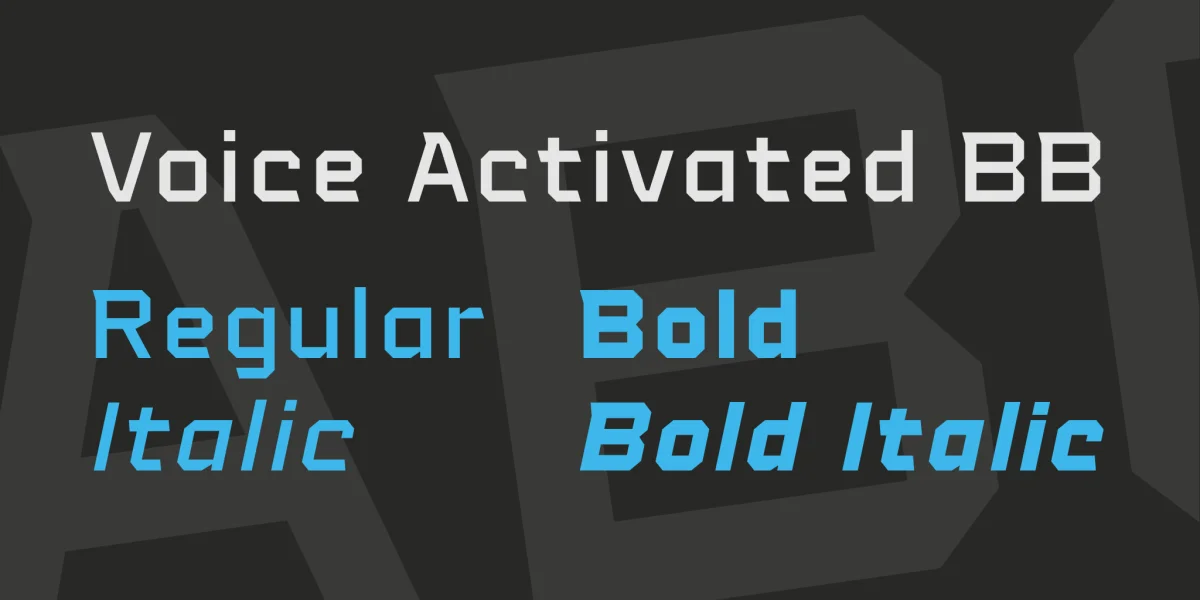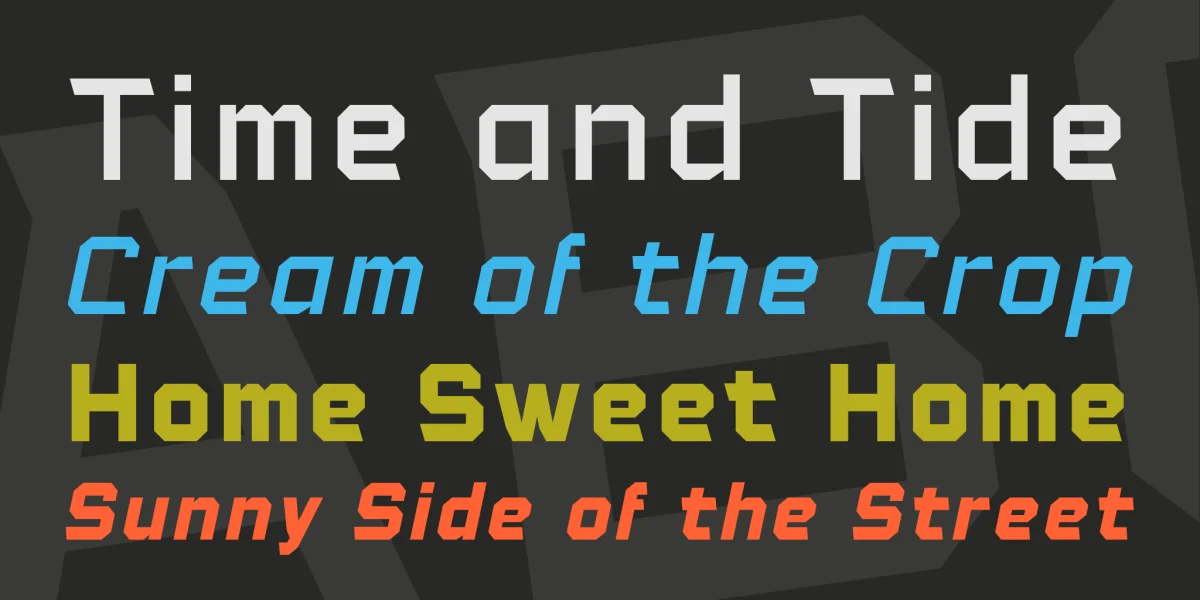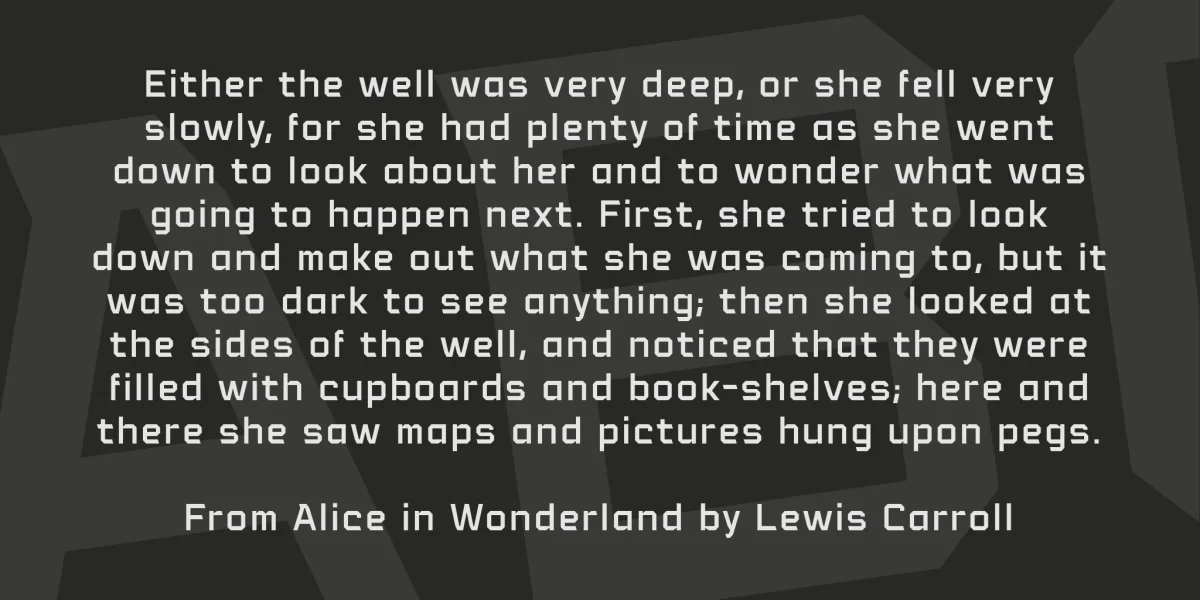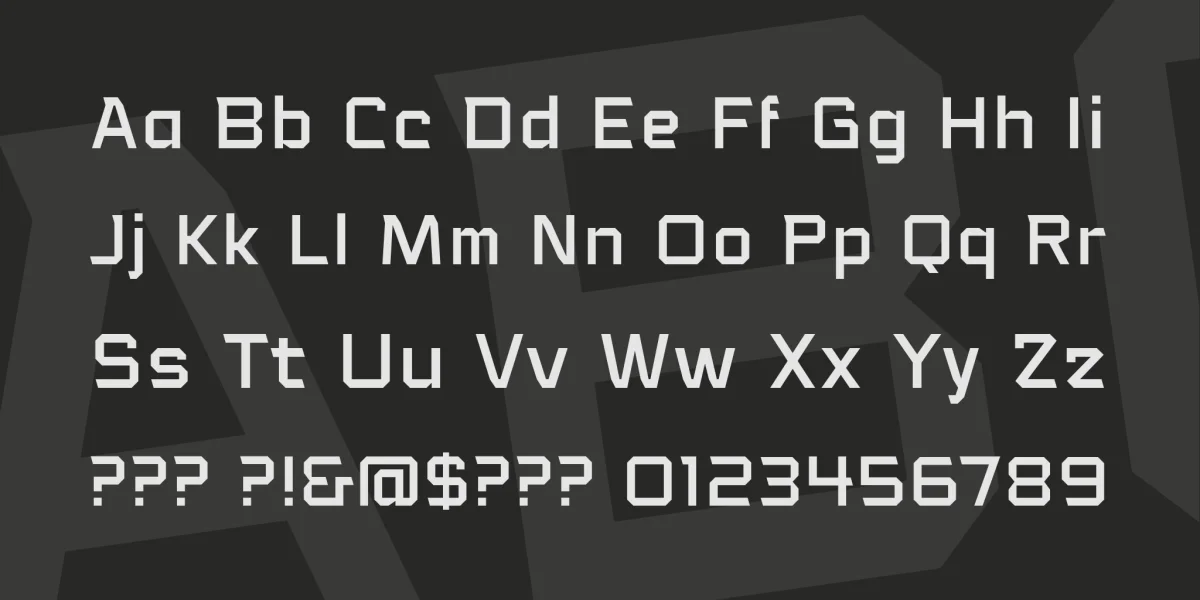
VOICE ACTIVATED BB is an all-purpose, sentence-case, robotic dialogue font (or even a sci-fi title font!) Includes Regular, Italic, Bold, and BoldItalic.